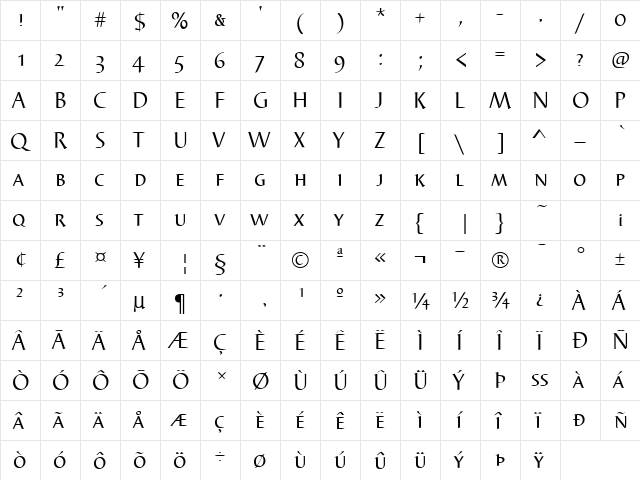
BarbedorSmc Regular
Design Context for BarbedorSmc Typeface
BarbedorSmc is a composed and adaptable typeface that performs quietly and consistently across a wide range of design contexts.